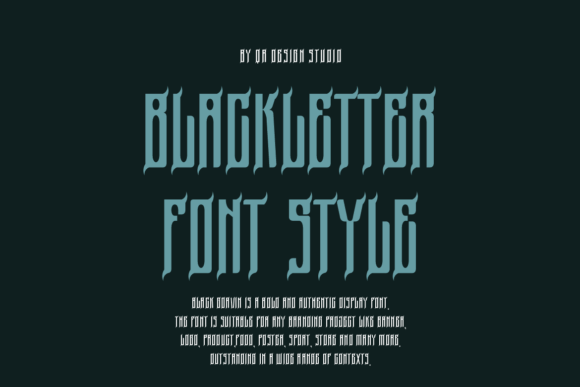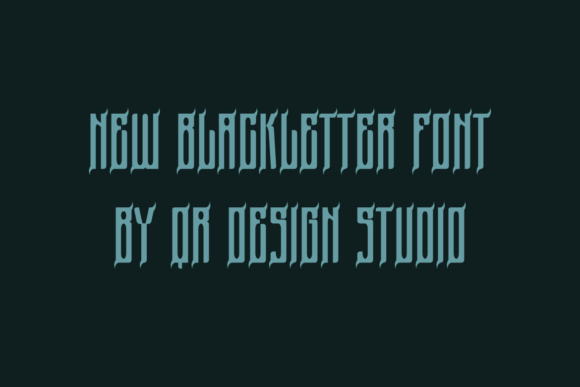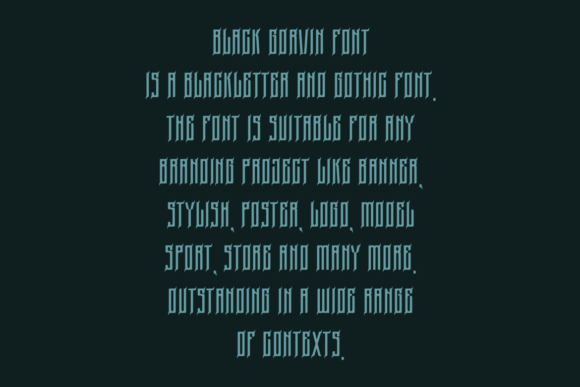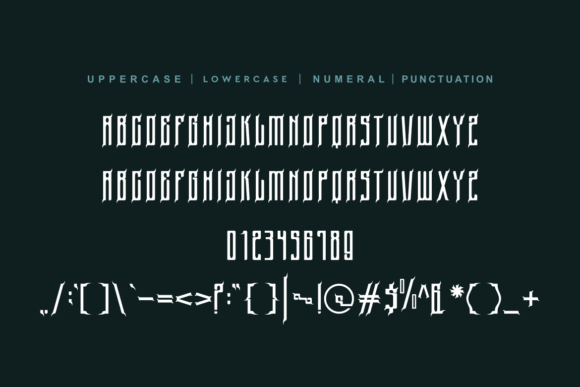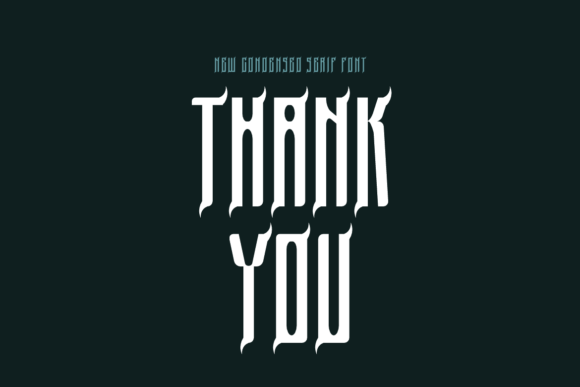
Unleash the Power of Black Gorvin Font
Have you ever stared at a blank page, searching for the perfect font to capture the essence of your creative vision? You’re not alone. Many designers face this challenge daily. But what if I told you there’s a font that can instantly elevate your typography and transport your audience to a bygone era? Meet the Black Gorvin Font, a striking blackletter font that exudes power and sophistication.
With its bold, Gothic-inspired design and sharp, angular edges, Black Gorvin Font is perfect for adding a touch of medieval flair to your projects. Whether you’re creating a sense of authority in branding, designing invitations, or crafting a unique aesthetic for your website, Black Gorvin Font is the perfect companion to help you achieve your goals. As a designer, you’ll appreciate the versatility and timeless appeal of this distinguished font, making it a valuable addition to your design arsenal.
Black Gorvin Font Key Features
- Unique Characteristics: Black Gorvin features a bold, gothic-inspired design with heavy lines and a dramatic feel, making it ideal for titles, headings, and emphasis.
- Character Set: Includes a comprehensive character set, including Latin, Cyrillic, and Greek alphabets, as well as punctuation and symbols.
- Font Weight: Available in 3 weights: Regular, Bold, and Black, providing flexibility for various design applications.
Black Gorvin Font Review
As a designer, I’ve had the chance to play around with the Black Gorvin font, and I must say it’s got some great qualities. ✨ Here are some things that really work well:
- Unique aesthetic: The Black Gorvin font has a distinct, edgy feel that sets it apart from more traditional sans-serif fonts.
- High contrast: The bold, black lines create a high contrast with the background, making it perfect for use in headlines and titles.
- Flexibility: Black Gorvin comes in a range of weights and styles, making it easy to find the perfect fit for your design project.
Of course, no font is perfect, and Black Gorvin has some limitations ⚠️:
- Not ideal for body text: Due to its bold, condensed design, Black Gorvin can be tiring to read in large blocks of text.
- May not be accessible: The font’s high contrast and condensed design can make it difficult for some users to read, especially those with visual impairments.
Overall, Black Gorvin is a great addition to any designer’s toolkit. While it may have some limitations, its unique aesthetic and high contrast make it perfect for use in headlines, titles, and other design elements where you want to make a statement.
Black Gorvin Font Practical Application Guide
Black Gorvin font is ideal for:
1. Logos and branding materials.
2. Business cards and letterheads.
3. Headings and titles in presentations and documents.
4. Design elements where a bold, modern look is desired.